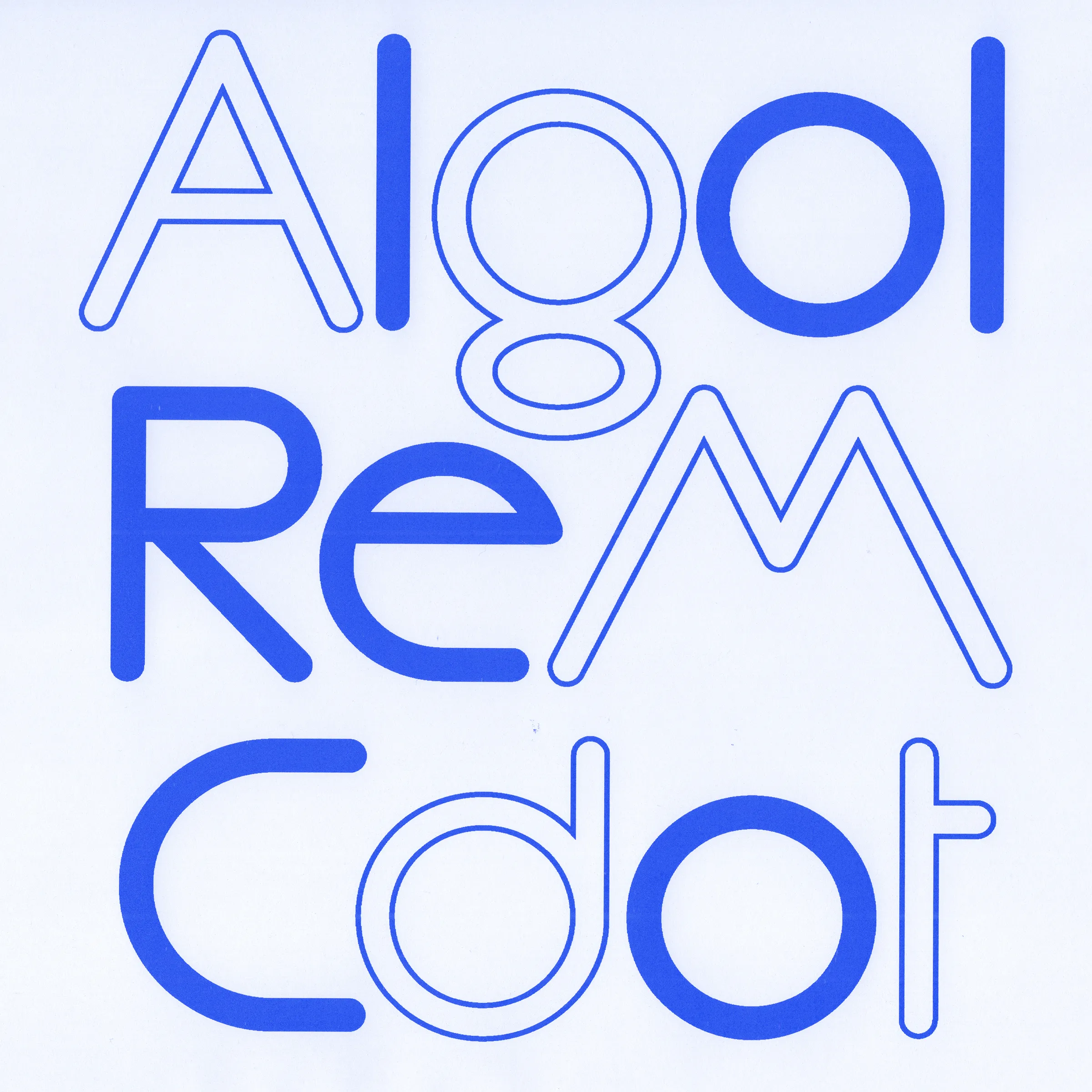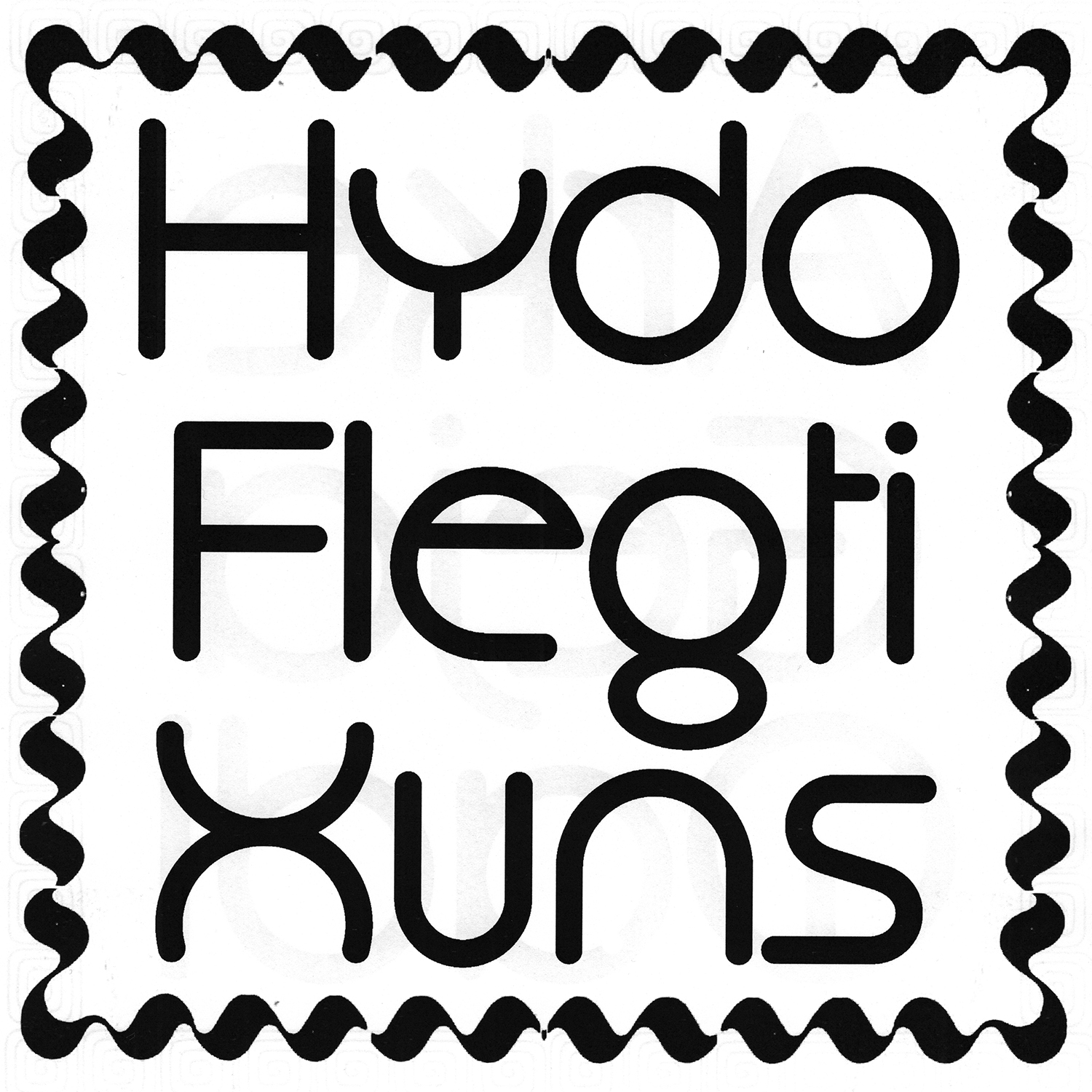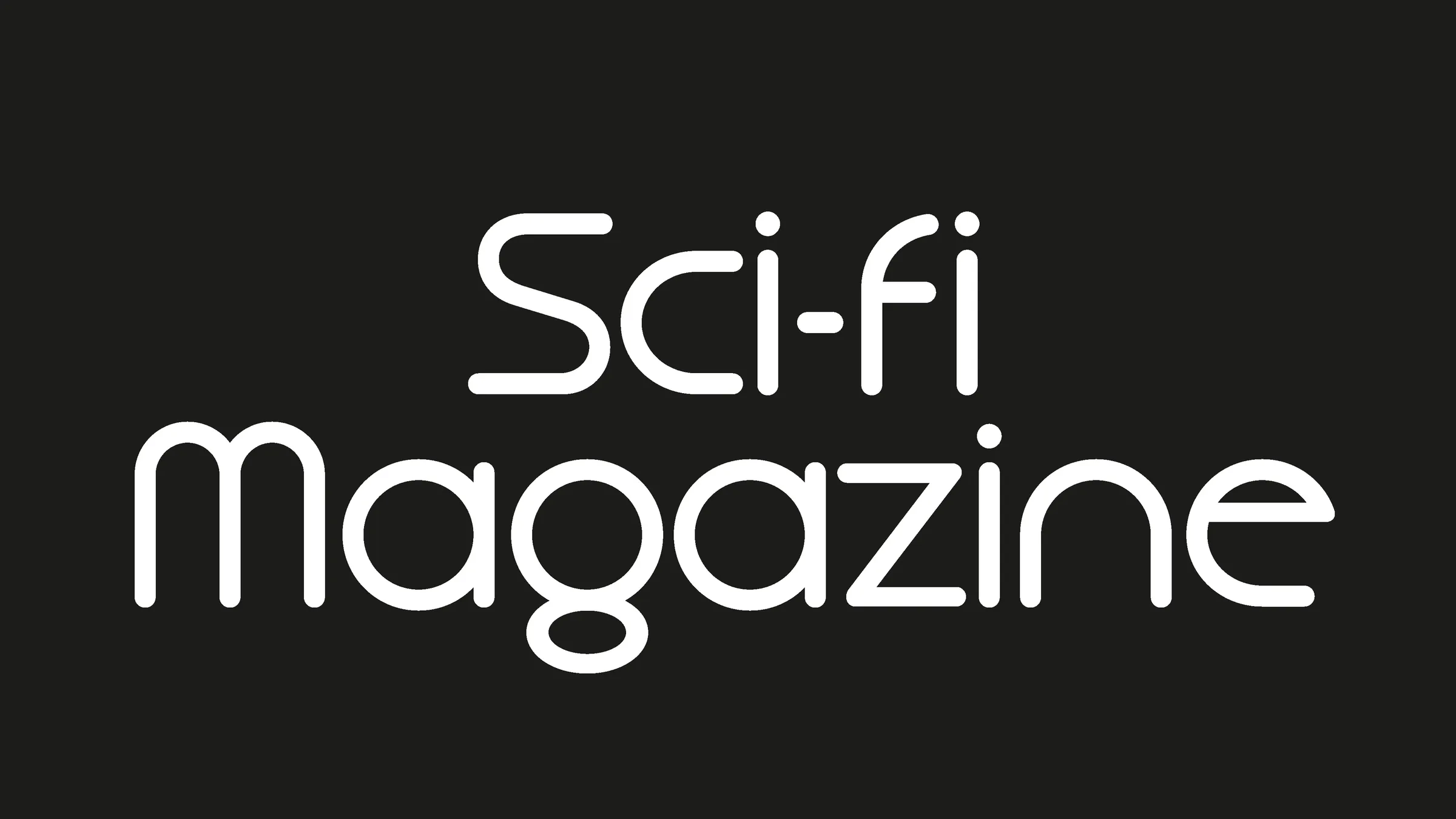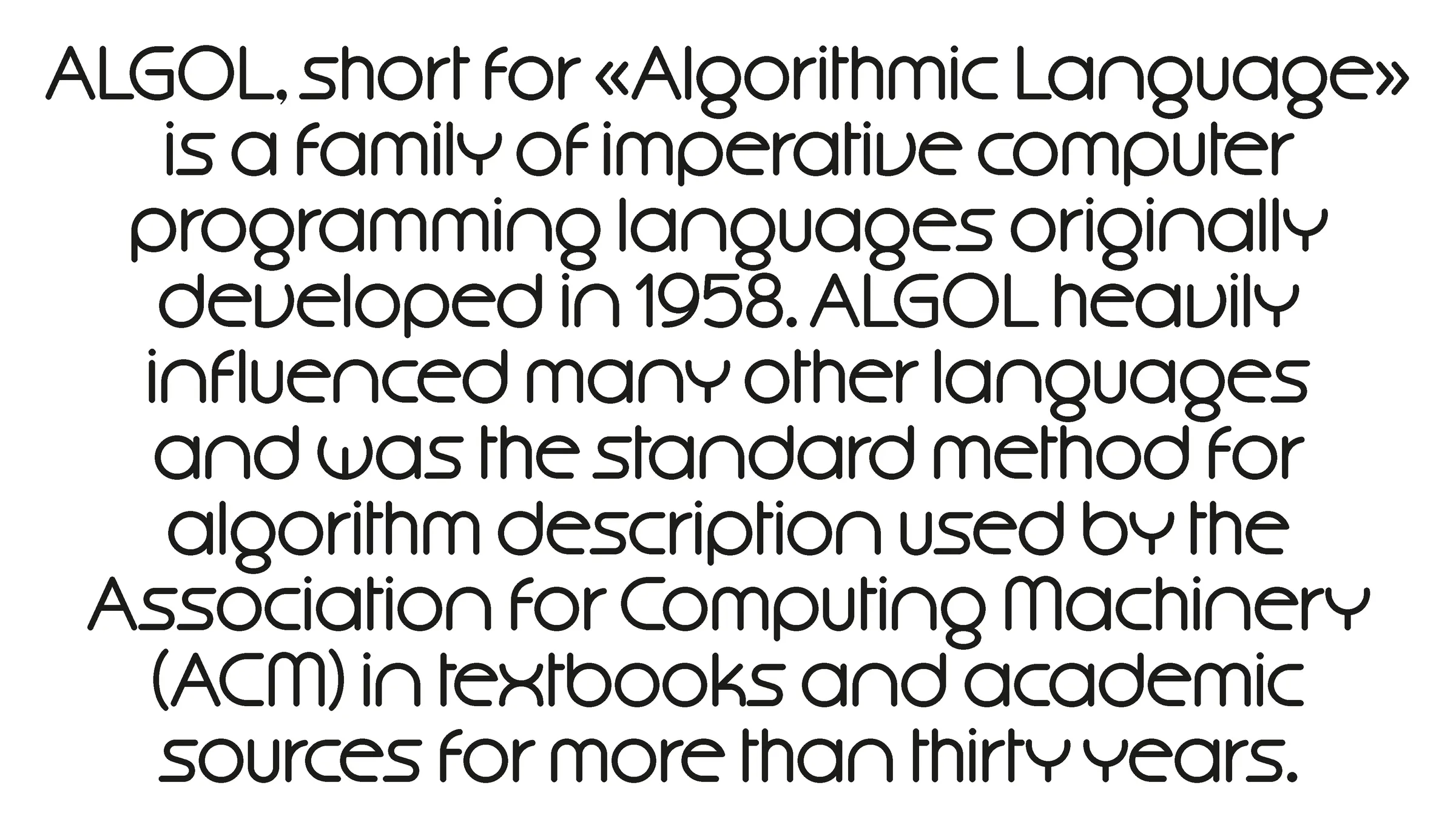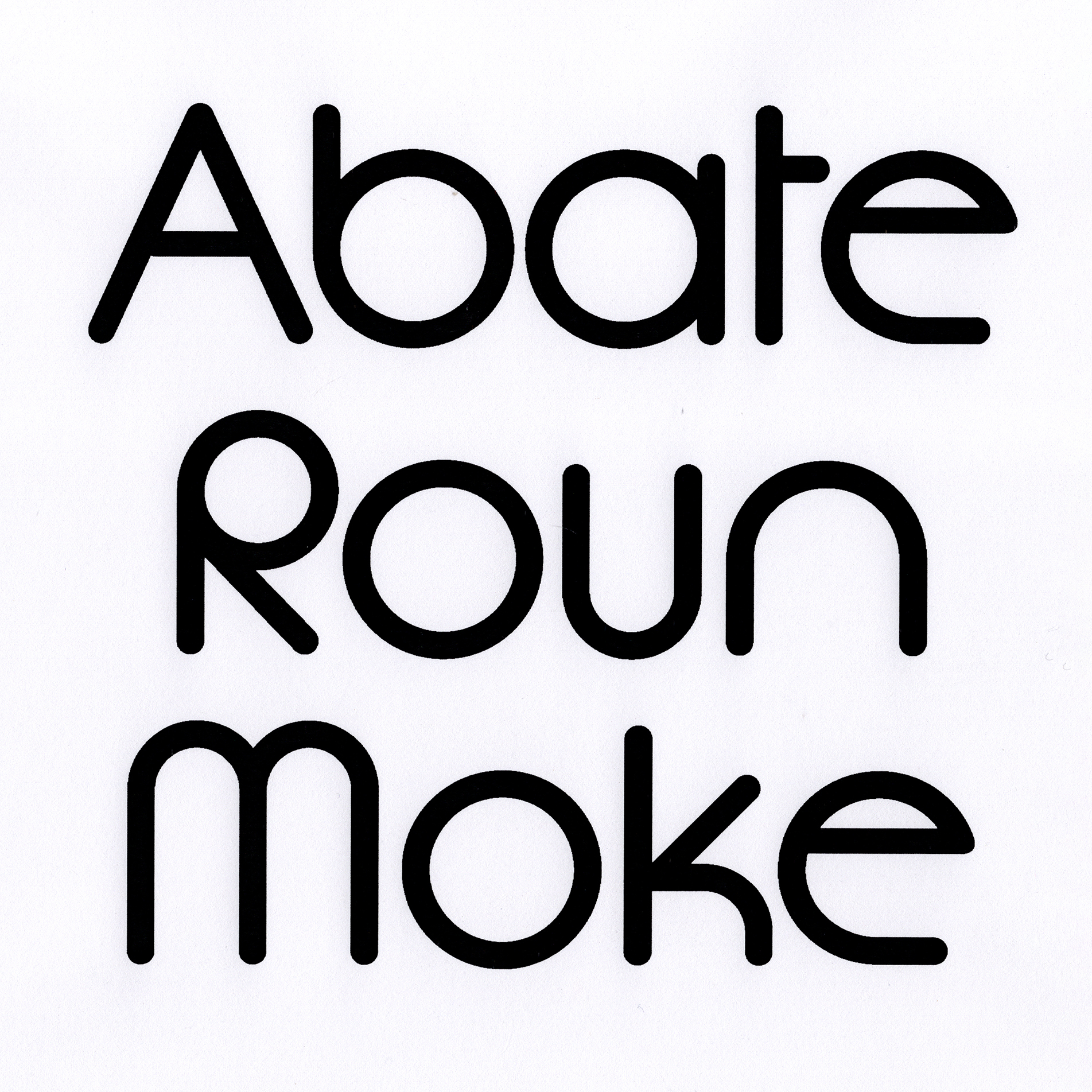
Algol
DECO TYPES FOR THE DYNAMIC SEVENTIES / Alphabet Directions Number Eleven Photo-Lettering Inc., Ed Benguiat [Designer] / 1970
Joseph Churchward / Churchward Design / print negative / 1972
First covers of “Algol, the magazine about the science-fiction” published by Andrew Ian Silverberg in New York City in 1963
CS Lewis / The Silver Chair / Chronicles of Narnia Book 4 / illustration by Roger Hane / 1970
About Algol
Algol is a sans serif and modular typeface, which could be defined as a science fiction typeface. It is inspired from the phototypesetting era when many typefaces of this kind were designed, from ITC bauhaus, to Pipeline, to Soul, to Vero, to Harry to ITC Ronda. The Simple geometric shapes, and the even stroke weights create a strong graphic presence, some of the letters stand out, others are reassuring, but the whole shows a strong and original identity. Many uses of these fonts were visible on book covers, especially in long series and sagas of science fiction novels as pocket book or the famous ’Fighting Fantasy Books‘.The name Algol is a tribute to an old sci-fi fanzine (see the first covers of the magazine on the left) created by Andrew Ian Silverberg in New York City in 1963.
Design by Eliott Grunewald in 2023